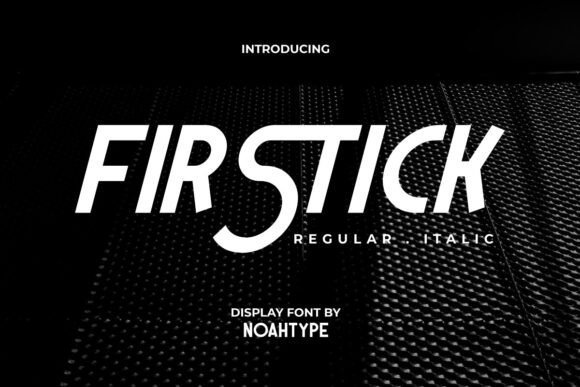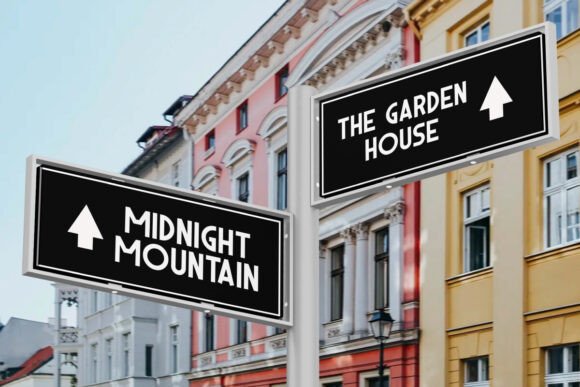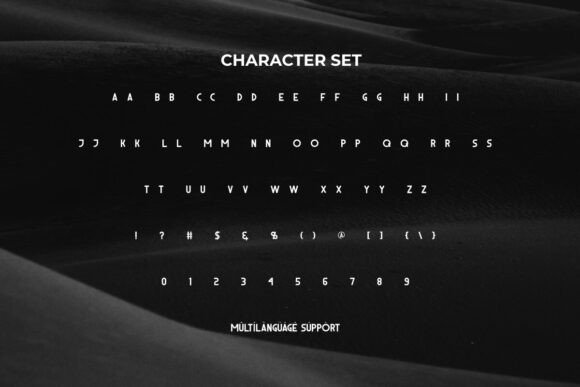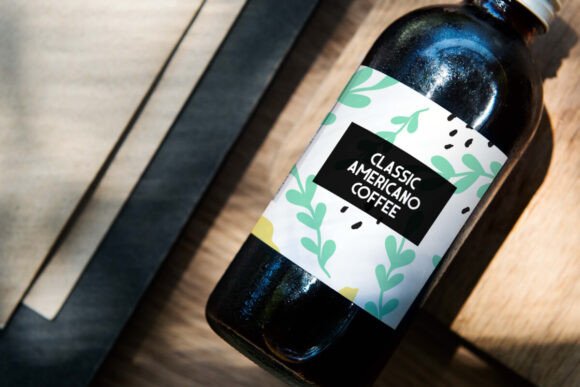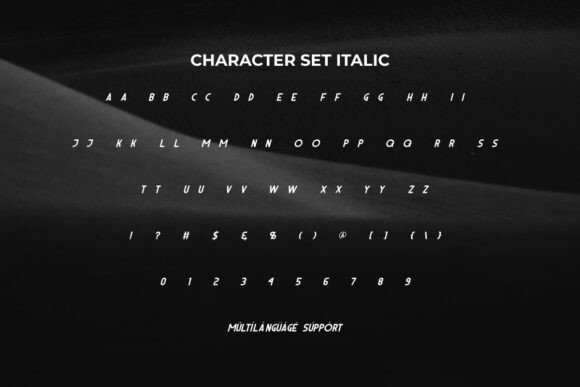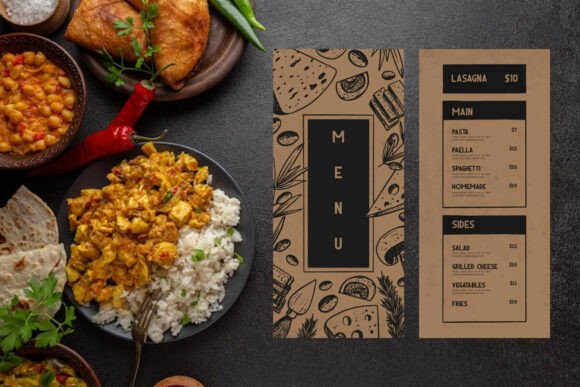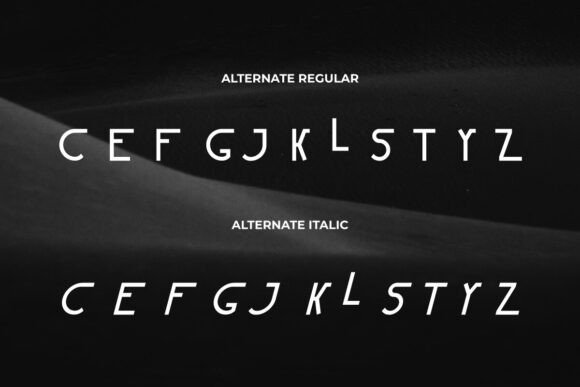
Get Ready to Accelerate Your Designs
Remember that rush of adrenaline when you’re working on a project and the perfect font finally clicks into place? It’s like the entire design falls into focus, and you can’t wait to share it with the world. For designers, finding the right font can be a game-changer, and that’s exactly what NoahType’s Firstick Font is designed to do.
Firstick Font is a modern sans serif display font inspired by the thrill of racing and sports. Its casual yet modern aesthetic makes it perfect for a wide range of designs, from business cards to product packaging. With both Regular and Italic styles, this versatile font gives designers the flexibility they need to create unique and eye-catching designs that stand out from the crowd.
Key Features of Firstick Font
- Unique Characteristics: Firstick Font features a unique blend of modern and vintage elements, with distinctive letterforms and subtle texture, giving it a distinctive and eye-catching appearance.
Designer Review: Firstick Font
Firstick Font is a modern, sans-serif font that’s designed to give your text a clean and approachable feel. Overall, I think it’s a solid choice for designers looking for a versatile font.
- ✨ High legibility: Firstick Font is designed to be easy to read, even at small font sizes.
- ✨ Versatility: It’s suitable for a wide range of applications, from body text to headlines.
- ✨ Neutral aesthetic: The font’s clean design makes it a great choice for projects where you want to avoid drawing attention away from the content.
- ⚠️ Limited expressiveness: Firstick Font is a fairly straightforward, no-frills font that may not be suitable for projects where you want to add a bit of personality or flair.
- ⚠️ May not work well for bold typography: While the font is great for body text, it may not be the best choice for bold, attention-grabbing headlines.
I think Firstick Font is a great addition to any designer’s toolkit. While it may not be the most exciting or expressive font out there, it’s a solid choice for projects where you want a clean, approachable feel.
Use the Firstick Font in bold or italic styles to add emphasis to your text. Experiment with different font sizes and colors to create visual hierarchy and balance in your design.
The Firstick Font is suitable for a variety of designs, including:
- Corporate branding and marketing materials
- Print design and advertising